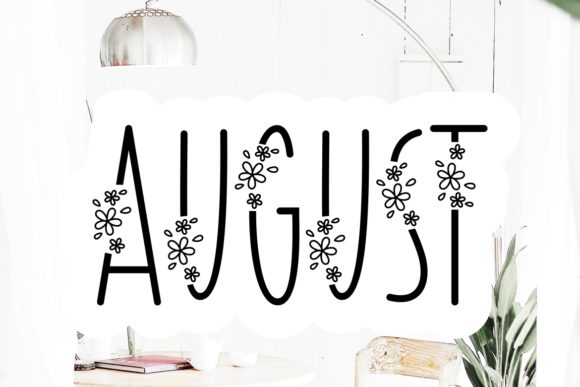
The Perfect Font for Spring: An In-Depth Look at August Font
I’ll never forget the moment I stumbled upon the August font while working on a spring-themed crafting project. I was on a mission to create the perfect invitation for a baby shower, and I was struggling to find a font that captured the essence of the season. That’s when I discovered August, a gorgeous monoline font with a beautiful flower-themed style. It was love at first sight! 💐
A Personal Review of August Font
- 💕 The elegant and modern monoline design makes it perfect for a wide range of projects, from invitations to branding materials.
- 🌼 The flower-themed style adds a touch of whimsy and playfulness, making it ideal for spring and summer projects.
- ✅ The font is highly legible, even at smaller sizes, making it perfect for body text and captions.
- 🎨 The clean and minimalist design makes it easy to pair with other fonts and design elements.
While August font is an amazing addition to any design project, there are a few things to keep in mind:
- 🤔 The font may not be the best choice for very formal or traditional projects, as it has a distinctly modern and playful feel.
- ⚠️ Some of the glyphs and special characters may not be suitable for non-English languages, so be sure to test the font with your specific language needs.
The Designer Inspiration Behind August Font
August font was designed with the goal of capturing the essence of spring and summer. The designer, inspired by the beauty of flowers and the elegance of monoline design, created a font that’s both modern and playful. The result is a font that’s perfect for a wide range of projects, from invitations to branding materials.
Q: What type of projects is August font best suited for?
A: August font is perfect for spring and summer projects, such as invitations, greeting cards, and branding materials.
Q: Is August font available in different weights and styles?
A: Currently, August font is available in a single weight and style. However, the designer may release additional weights and styles in the future.